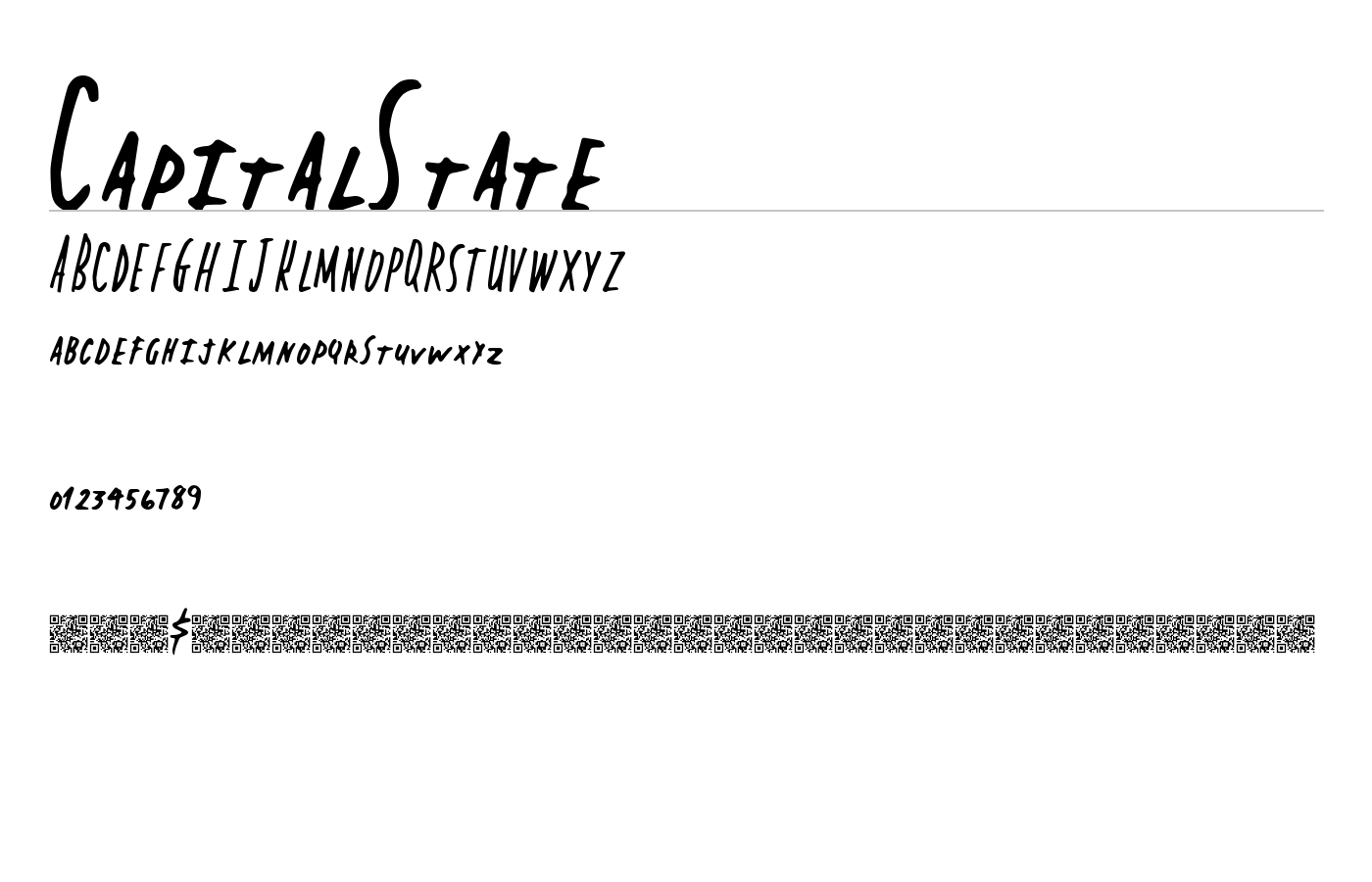
CapitalState is a quirky, handwritten sans serif font characterized by tall, narrow letterforms and a casual, energetic style. Its uneven strokes and playful irregularities give it a distinctive, informal personality perfect for creative projects, posters, and branding that aim to convey spontaneity and individuality. This font works well where a lively, personal touch is needed to stand out and engage audiences.
CapitalState Font
About CapitalState Font